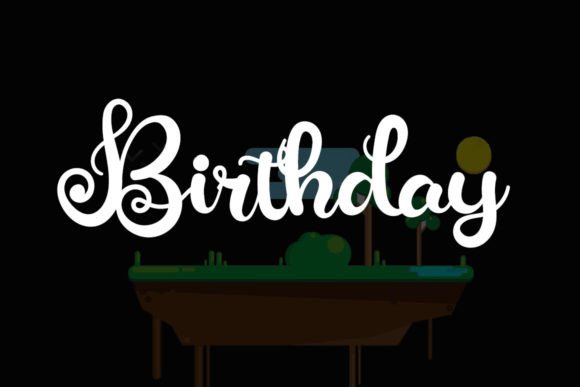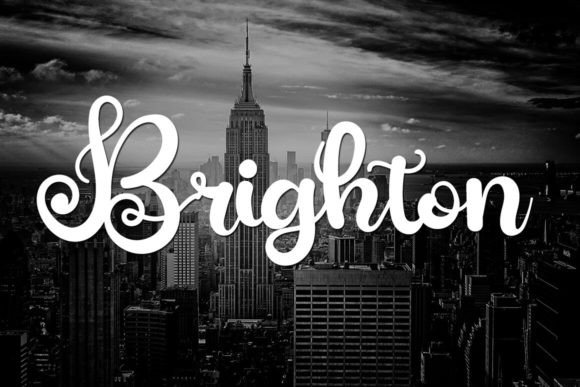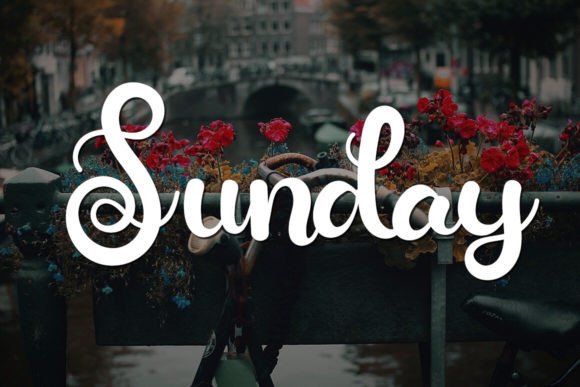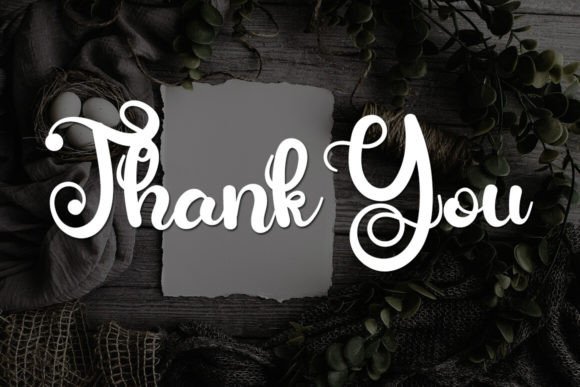
The Power of a Perfect Font: Unlocking Your Creative Potential
Have you ever stared at a blank page, trying to come up with the perfect design concept, only to have it all come together when you stumbled upon the right font? For designers, finding that perfect font can be a game-changer. It’s the difference between a mediocre design and a truly eye-catching one that stops people in their tracks.
Enter the Berlyna Font, a modern masterpiece that’s designed to elevate your business needs to the next level. With its sleek and sophisticated style, this font is perfect for creative projects like websites, social media, and product packaging. Whether you’re looking to create a luxurious brand identity or simply want to add a touch of class to your designs, the Berlyna Font is the perfect tool for the job.
As a PUA-encoded font, the Berlyna Font offers unparalleled flexibility and ease of use, making it a valuable asset for designers of all levels. So why settle for a generic font when you can have a font that truly makes a statement?
Berlyna Font Key Features
- Unique Characteristics: The Berlyna font features a unique, hand-drawn design with subtle flourishes and irregularities, giving it a distinctive and elegant look.
- Font Styles: The font family includes multiple styles, including regular, bold, italic, and bold italic, providing users with a range of options for different design applications.
Designer Review: Berlyna Font
I recently had the chance to work with the Berlyna Font, and I’m excited to share my thoughts with you.
- The Berlyna Font has a unique, elegant style that makes it perfect for luxury and high-end branding.
- The font’s script-like features add a touch of sophistication and sophistication, making it ideal for wedding invitations, fashion labels, and other upscale designs.
- The font is highly legible, even at small sizes, which is a must for any font used in professional settings.
- The Berlyna Font may be too ornate for some designs, making it difficult to read or understand the text.
- The font is not ideal for body text, as it can be too busy and overwhelming for large blocks of text.
Overall, I think the Berlyna Font is a great choice for designers looking to add a touch of elegance and sophistication to their designs. However, it’s essential to use it judiciously and in the right context to avoid overwhelming the viewer. With some careful consideration and planning, the Berlyna Font can be a valuable addition to any designer’s toolkit.
Tip: Use the Berlyna font for headings and titles to add a touch of elegance to your designs.
Tip: Use the Berlyna font for typography-heavy designs, such as posters or brochures.
Tip: Use the Berlyna font for presentations or documents that require a professional and sophisticated look.
The Berlyna font is ideal for:
- Business cards and resumes
- Posters and brochures
- Presentations and documents